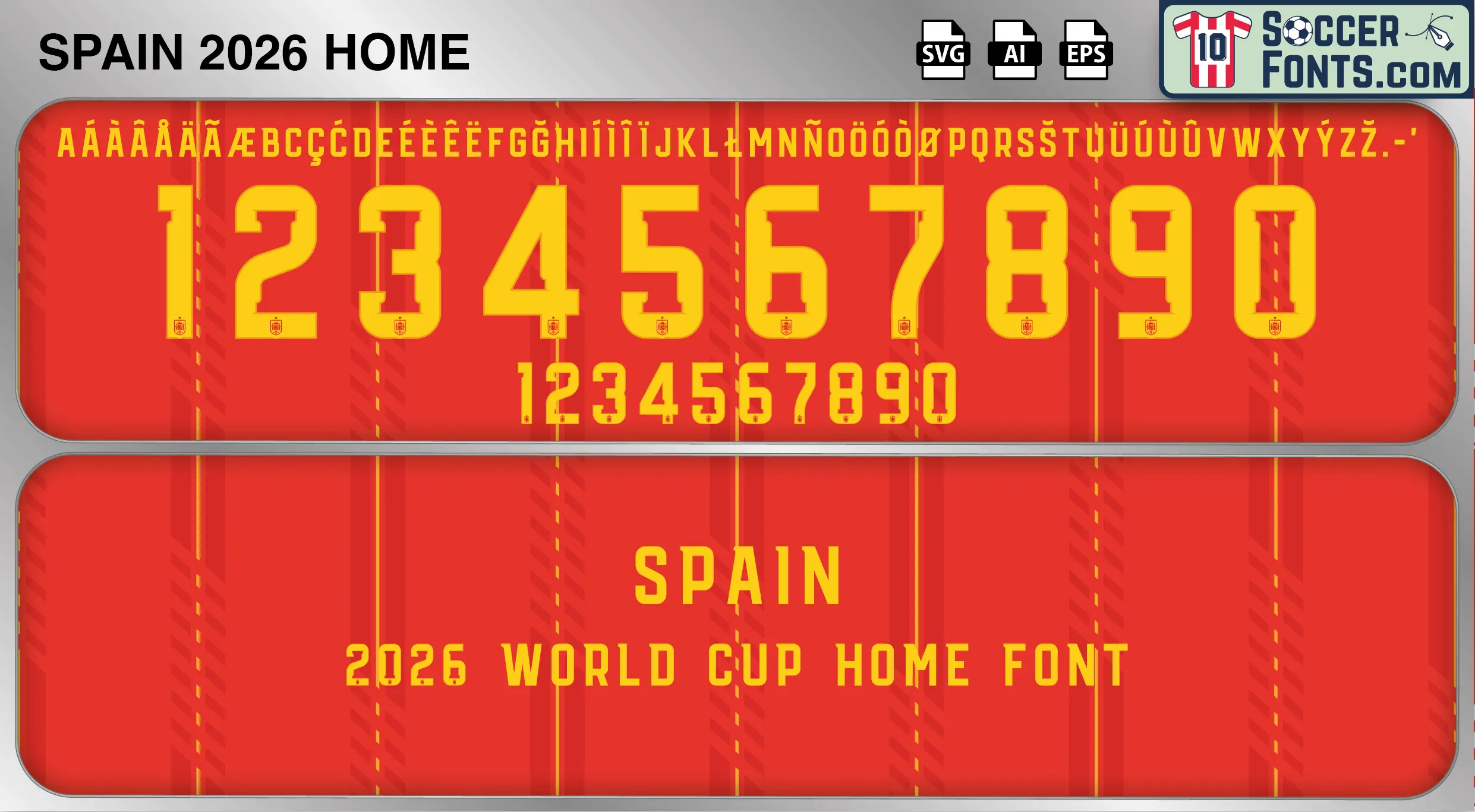
Spain 2026 World Cup Font Home
The Spain 2026 World Cup Font Home is an editable soccer jersey lettering design in vector format inspired by the Spain home kit style used during the 2026 FIFA World Cup. This football font artwork is prepared for football shirt recreations, custom jersey projects, football kit mockups and sports graphic design workflows.
The Spain 2026 World Cup Font Home is specifically associated with the lettering system used on Spain’s home shirts during the tournament. As part of Adidas’ 2026 World Cup kit program, selected national teams utilize separate typography systems for home and away kits rather than a single tournament-wide design. The Spain 2026 World Cup Font Home therefore represents the official lettering used alongside Spain’s iconic home kit throughout the World Cup cycle. This tournament era is expected to remain highly significant among football shirt collectors, national team supporters and designers seeking accurate recreations of Spain’s home shirt typography.